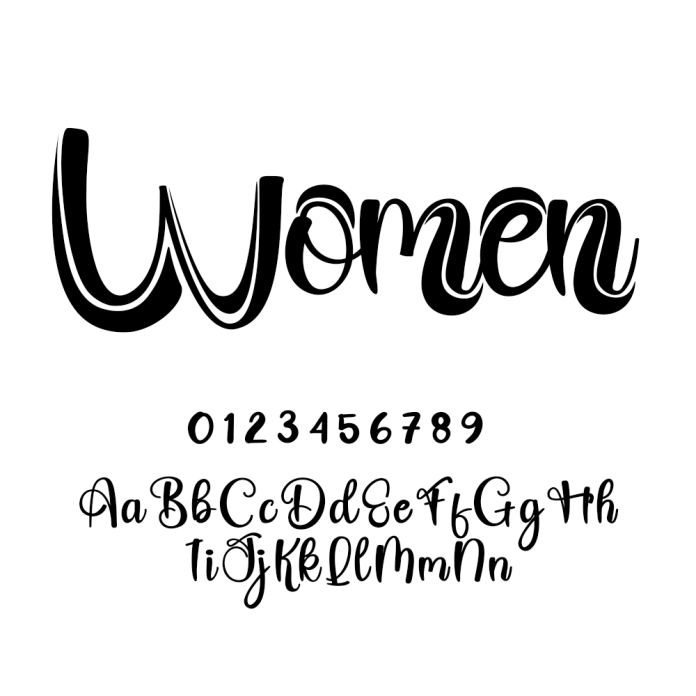
Women Script Font is a refined handwritten font that blends masculine elegance with a natural, personal touch. With smooth strokes and a confident flow, it’s perfect for signature logos, fashion branding, wedding invitations, product packaging, and classy quotes.